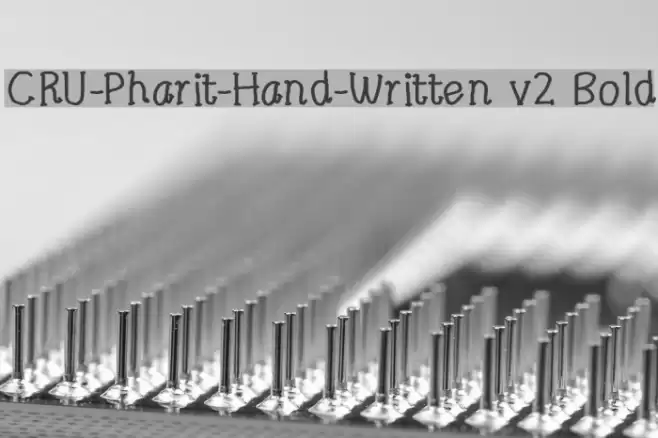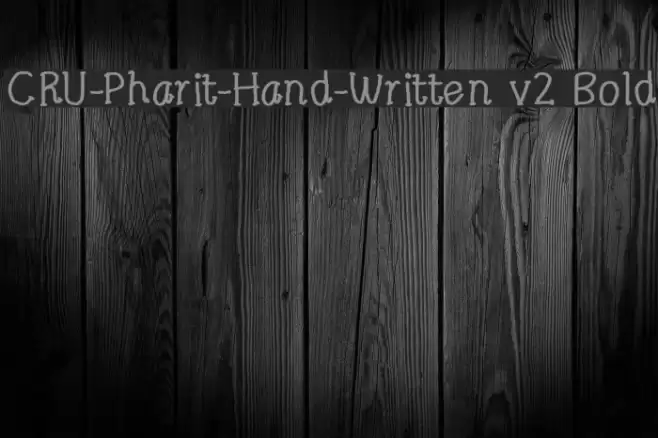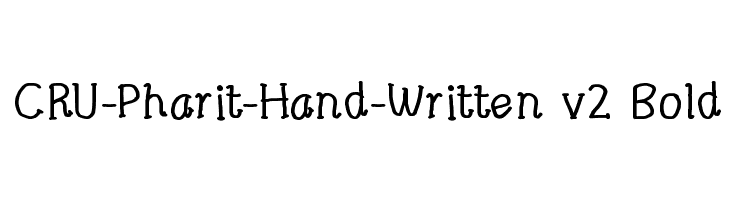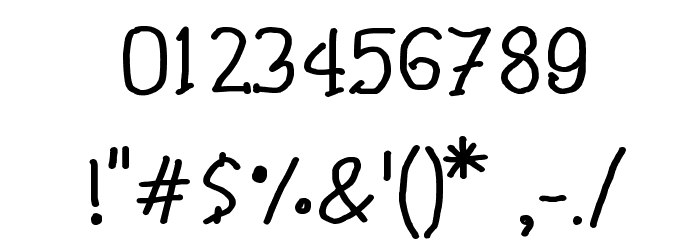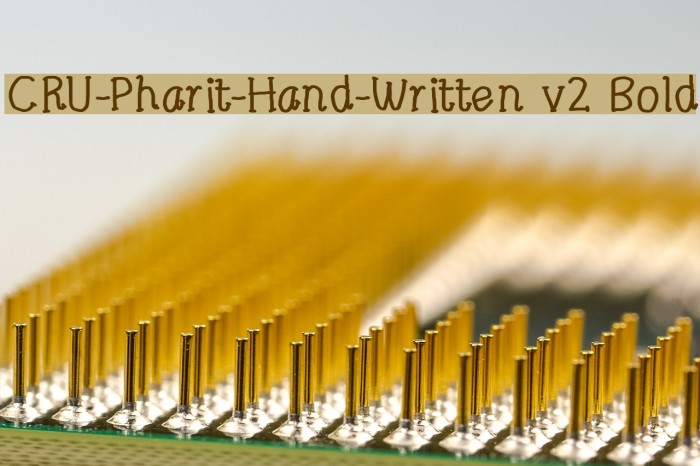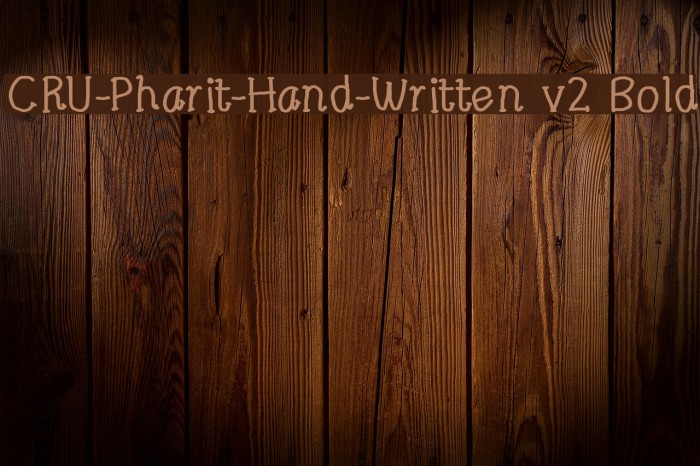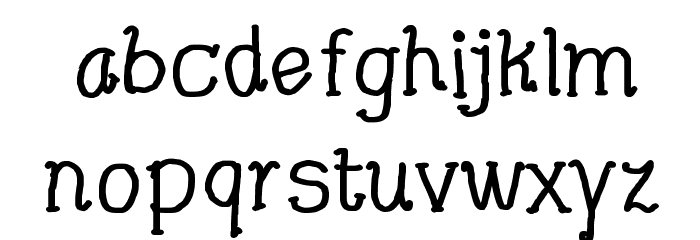
CRU-Pharit-Hand-Written v2 Bold Font
CRU-Pharit-Hand-Written v2 Bold Description
This font exudes a playful and casual handwritten style, characterized by its irregular strokes and whimsical curves. The letters have a slightly uneven baseline, adding to the informal and friendly appearance. The strokes are moderately thick, providing a bold presence without overwhelming the eye. The characters are well-spaced, ensuring readability while maintaining a relaxed feel. This font is versatile, suitable for projects that require a personal touch, such as greeting cards, invitations, or creative branding. Its unique style makes it stand out, offering a charming and approachable aesthetic.
A playful, bold handwritten font with whimsical curves and moderate thickness from Handwritten fonts.
- Proposed Projects: Ideal for greeting cards, invitations, creative branding, and personal projects.
- Overall Style: Casual, Playful
- Use Case: Headlines, Logos, Invitations